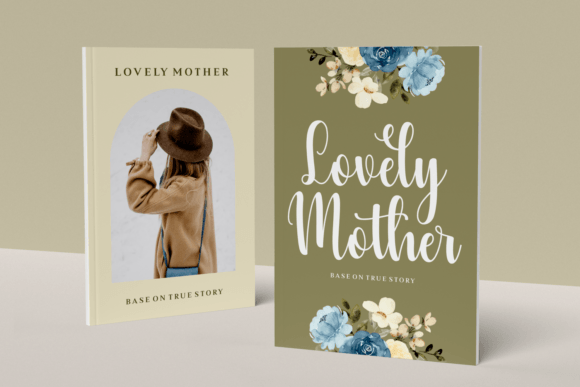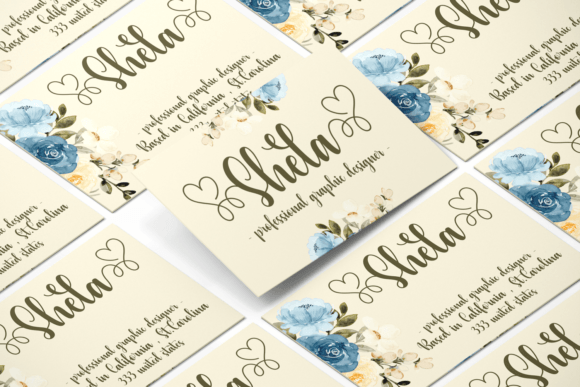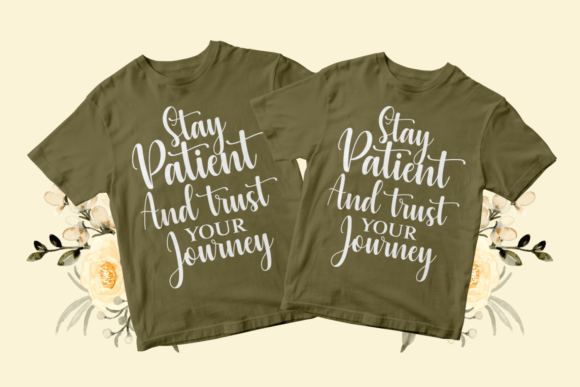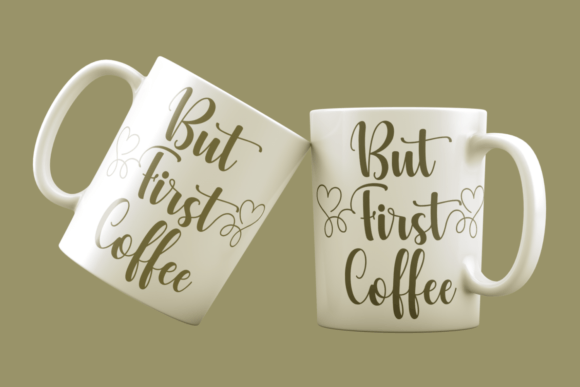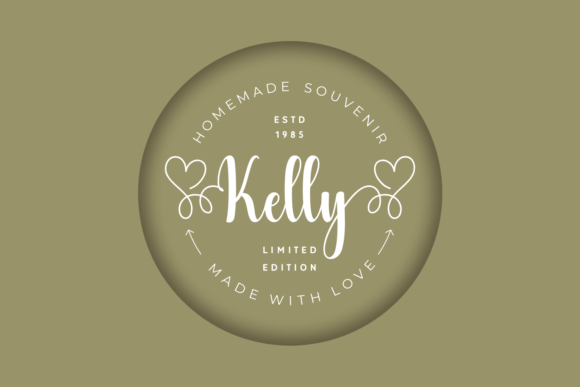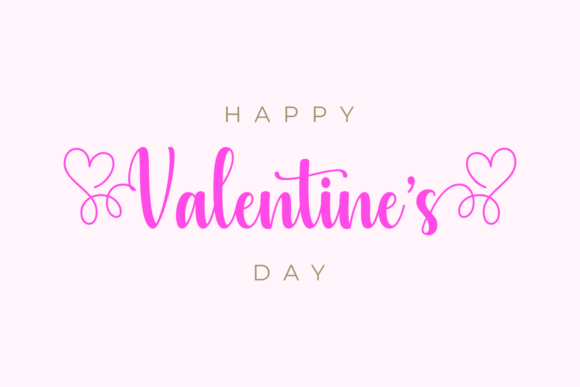
Introduction to Hesty Font
Hesty features a balanced, glamorous aesthetic that’s sure to add a flattering and deluxe touch to any design.
Keep in mind that the fond is PUA encoded, meaning that you can access all delightful glyphs and swashes effortlessly .
Key Features of Hesty Font
Why Choose Hesty Font?